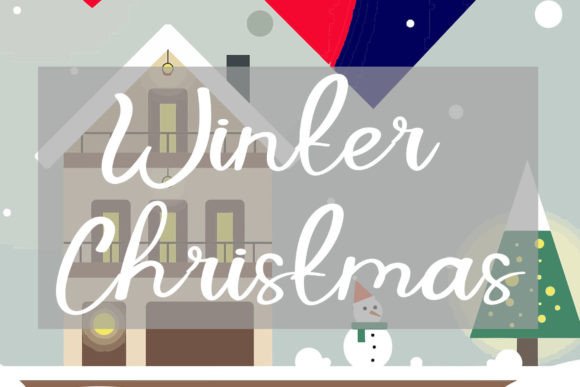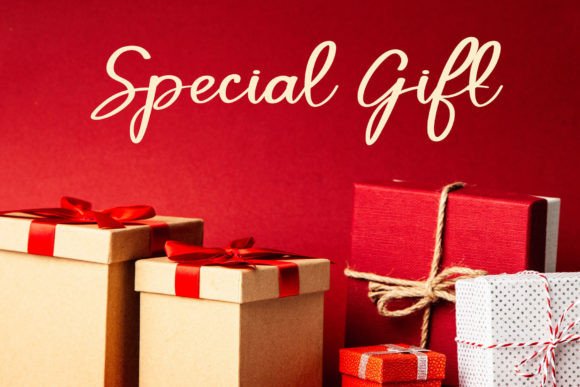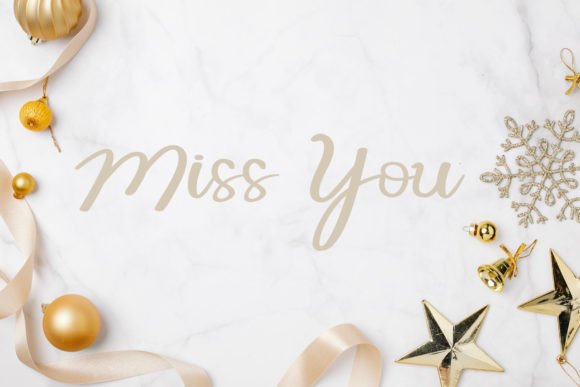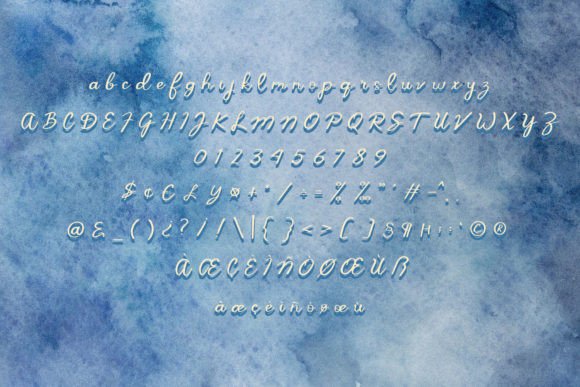
Christmas is Coming Font: A Cute and Friendly Handwritten Font for Your Holiday Projects
As the holiday season approaches, designers and crafters are on the lookout for the perfect fonts to make their Christmas projects shine. If you’re looking for a font that exudes a warm and friendly feel, look no further than the Christmas is Coming font. This adorable handwritten font is perfect for adding a personal touch to your holiday designs, whether you’re creating Instagram posts, DIY projects, or festive decorations.
What Makes Christmas is Coming Font So Special?
Christmas Is Coming is a cute and casual handwritten font with an incredibly friendly feel. Its unique and charming lettering style makes it perfect for a wide range of creative projects, from holiday cards and invitations to social media graphics and blog posts. The font’s friendly and approachable vibe is sure to put a smile on your face and make your designs stand out from the crowd.
Perfect for Instagram and DIY Projects
Whether you’re a social media influencer, a small business owner, or a crafter, the Christmas is Coming font is an excellent choice for your holiday projects. For Instagram enthusiasts, this font can add a personal touch to your holiday posts and stories, making them more engaging and festive. For crafters, the font can be used to create beautiful calligraphy scripts for DIY projects, such as holiday cards, gift tags, and decorations.
Turn Any Creative Idea into a True Piece of Art
The Christmas is Coming font is a versatile and creative tool that can turn any idea into a stunning piece of art. Its unique lettering style and friendly feel make it perfect for a wide range of applications, from festive and fun to elegant and sophisticated. Whether you’re creating a holiday-themed graphic, a handmade card, or a decorative sign, this font is sure to inspire your creativity and bring your ideas to life.
Key Features of Christmas is Coming Font
- Cute and casual handwritten font: The Christmas is Coming font features a unique and charming handwritten style that’s perfect for holiday projects.
- Friendly and approachable feel: The font’s friendly vibe makes it perfect for creating designs that are approachable and engaging.
- Perfect for Instagram and DIY projects: The font is ideal for social media graphics, calligraphy scripts, and handmade holiday crafts.
- Versatile and creative: The Christmas is Coming font can be used for a wide range of applications, from festive and fun to elegant and sophisticated.
Tips for Using Christmas is Coming Font
To get the most out of the Christmas is Coming font, here are a few tips to keep in mind:
- Pair with complementary fonts: Combine the Christmas is Coming font with other fonts that complement its friendly and casual style.
- Experiment with colors and textures: Add depth and interest to your designs by experimenting with different colors and textures.
- Use for headlines and titles: The Christmas is Coming font is perfect for headlines and titles, where its friendly and approachable vibe can shine.
- Don’t be afraid to get creative: The Christmas is Coming font is a versatile tool that can be used in a wide range of creative applications.
The Christmas is Coming font is a delightful and charming handwritten font that’s perfect for holiday projects. Its friendly and approachable vibe makes it ideal for designers and crafters who want to add a personal touch to their creations. Whether you’re creating Instagram posts, DIY projects, or festive decorations, this font is sure to inspire your creativity and bring your ideas to life.